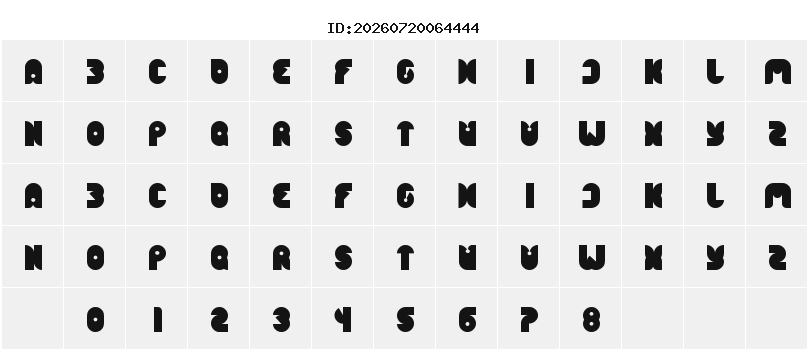
funny sport Preview
• Font Name: funny sport
About funny sport.ttf
funny sport.ttf is a modern, elegant sans-serif font designed for ultimate readability and visual harmony. Perfect for branding, headlines, web design, and print materials.